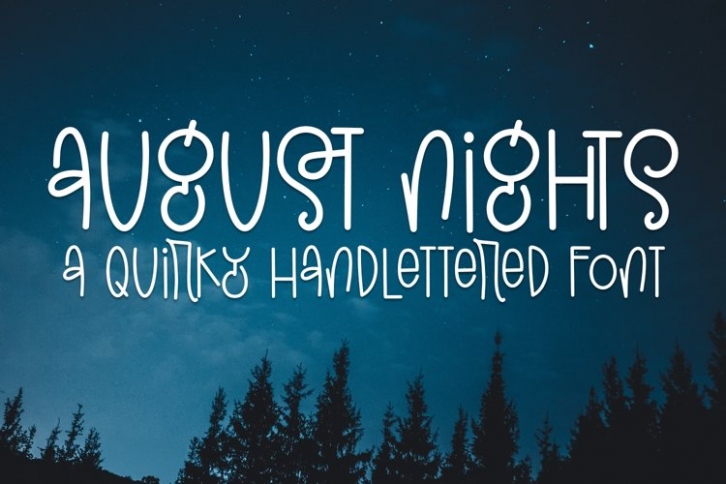
August Nights is a beautiful font that was designed by plusstore. It's a great choice for designers and creatives who need such a font. It was released on June 25, 2022 and the file size is 18.27 MB. August Nights may give a more youthful, expressive and casual look to your project. It is a very beautiful, refined, elegant, and high-quality font.